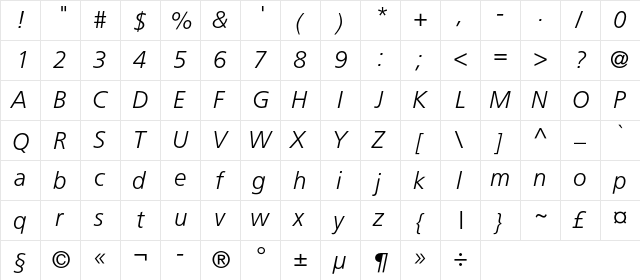
AGForeignerLightC Italic Font Preview
AGForeignerLightC Italic
AGForeignerLightC Italic Font Details
Design Context for AGForeignerLightC Typeface
AGForeignerLightC is a composed and adaptable typeface that performs quietly and consistently across a wide range of design contexts. The dynamic lean of this cut emphasises speed and emphasis in any layout. The delicate stroke weight brings airiness and refinement to layouts.
Pro Tip: Use AGForeignerLightC for emphasis, pull quotes, and subheadings where its slanted energy can add rhythm to the layout.